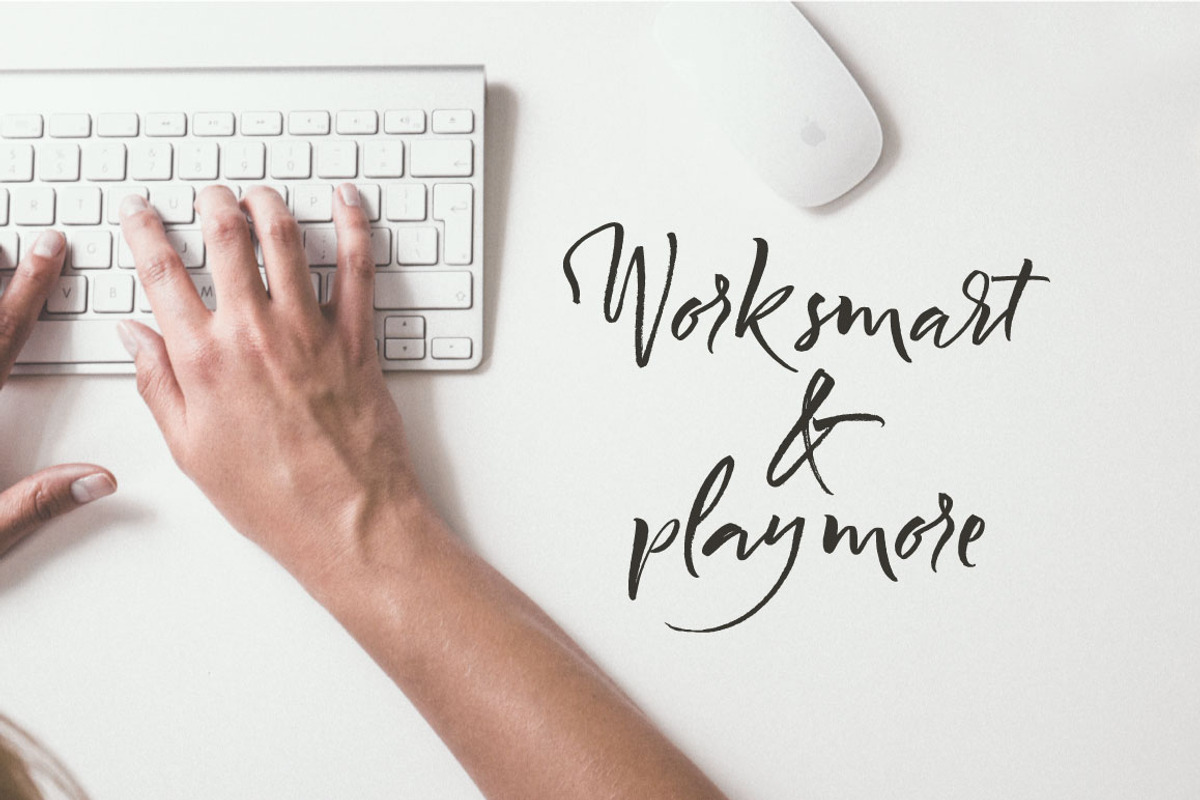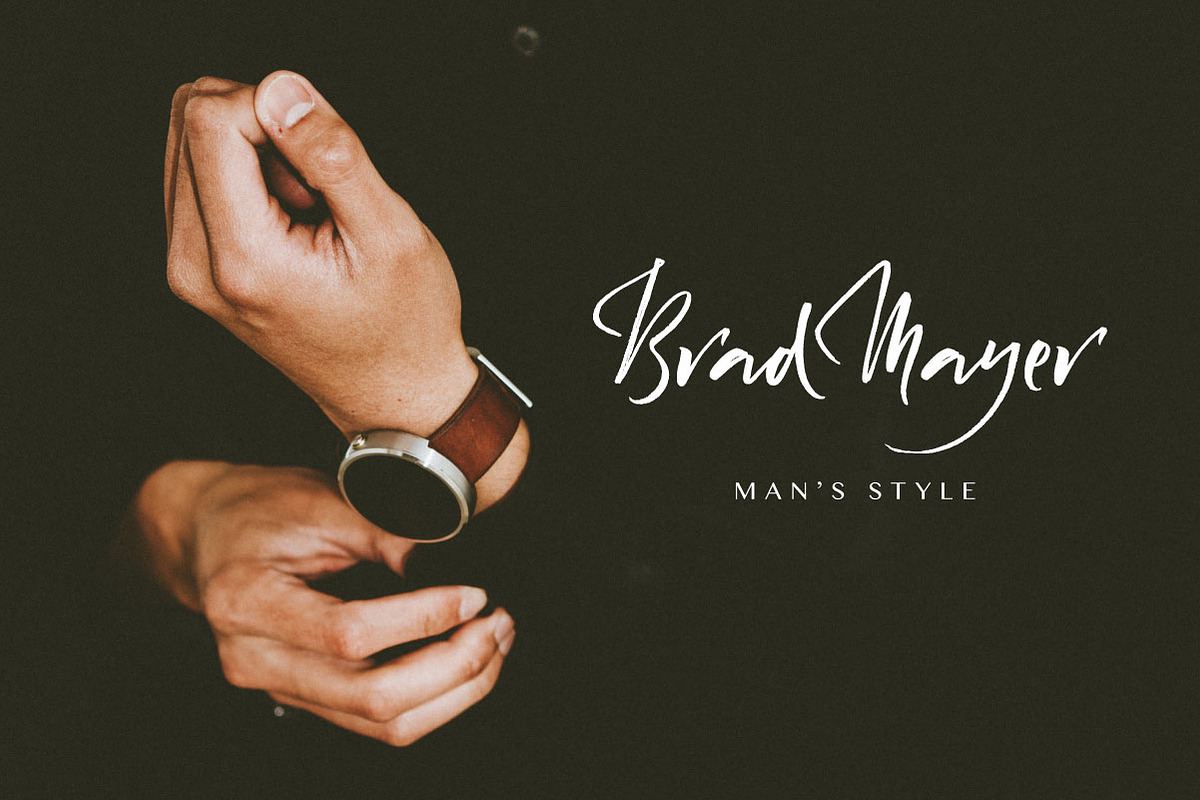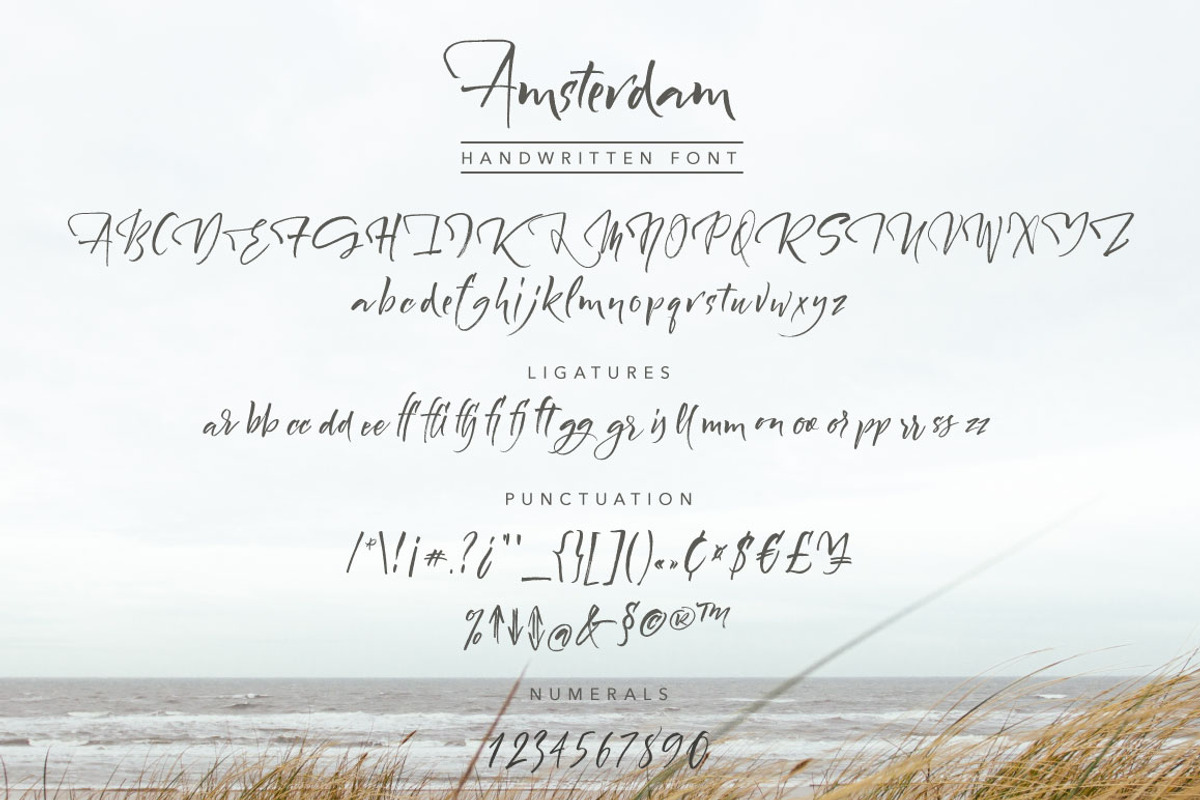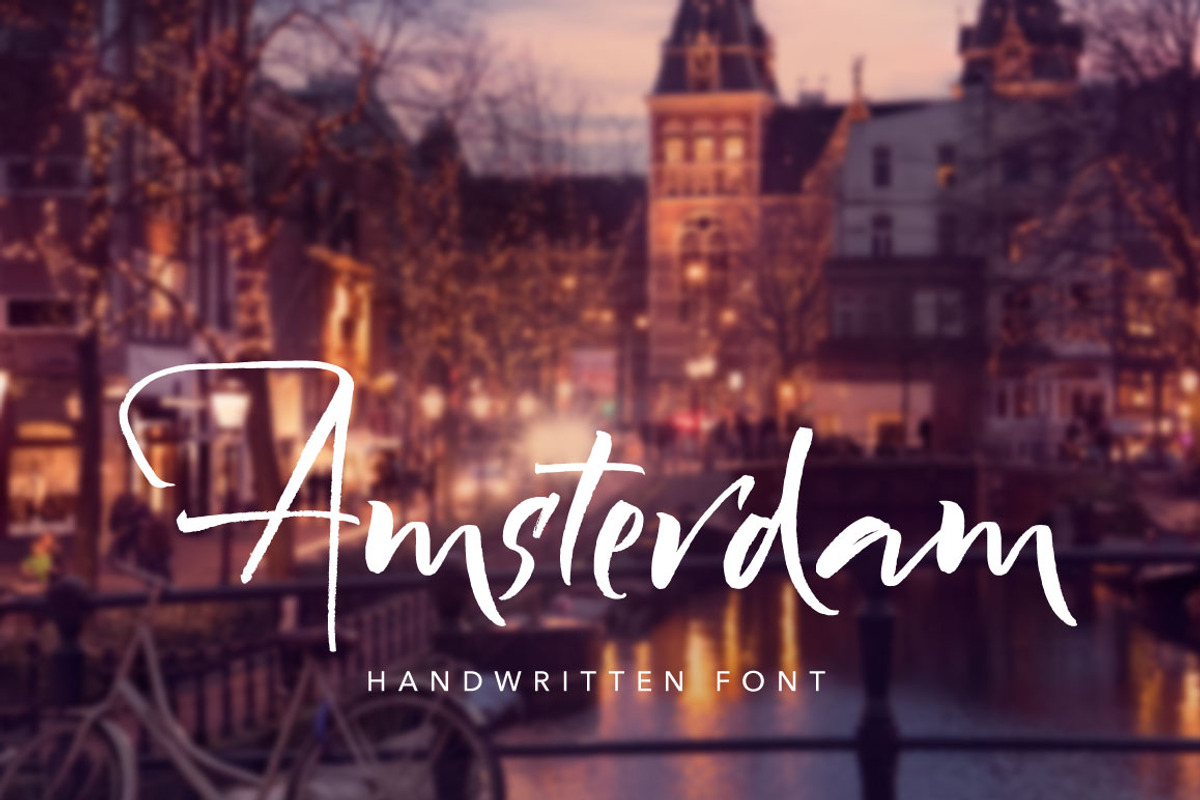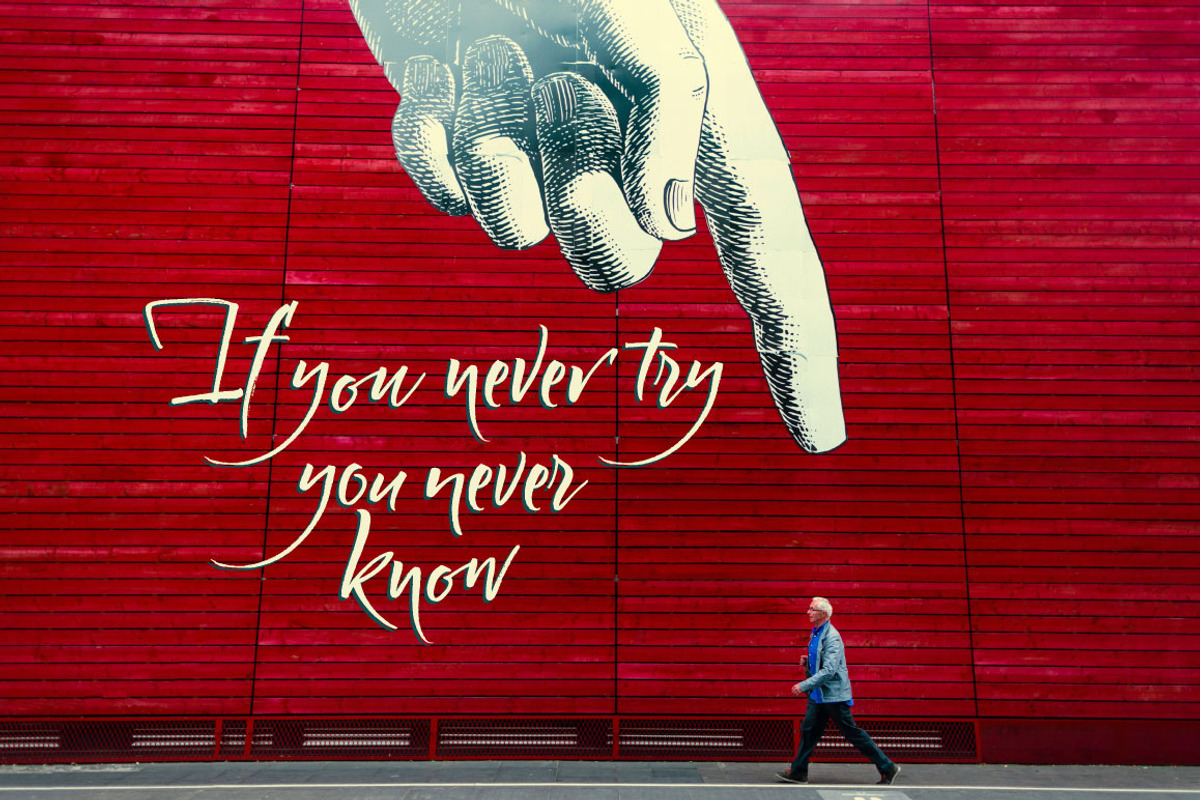
Amsterdam Handwritten Font
Amsterdam Handwritten Font by Vera Holera is a font selected for branding, posters, packaging, typography.
- Font includes multilingual support: English, Polish, Spanish, German, Portuguese, Italian, French.
- Introducing Amsterdam handwritten script font A handwritten script font containing upper & lowercase characters, numerals, punctuation and a
- A lot of ligatures and alternative letters.
Why Amsterdam Handwritten Font is worth a look
Amsterdam Handwritten Font by Vera Holera fits naturally into Branding, posters, packaging, typography.